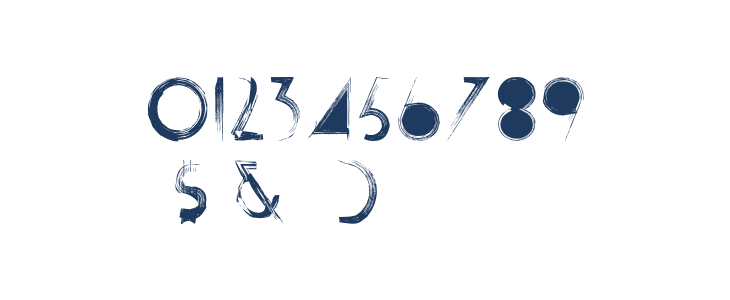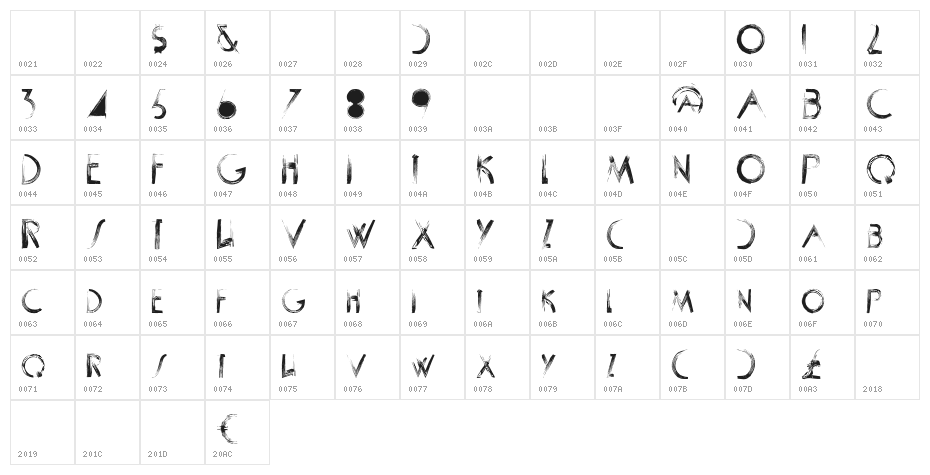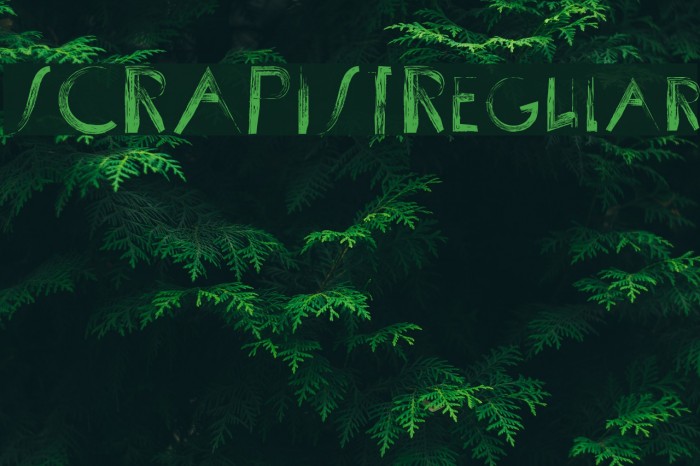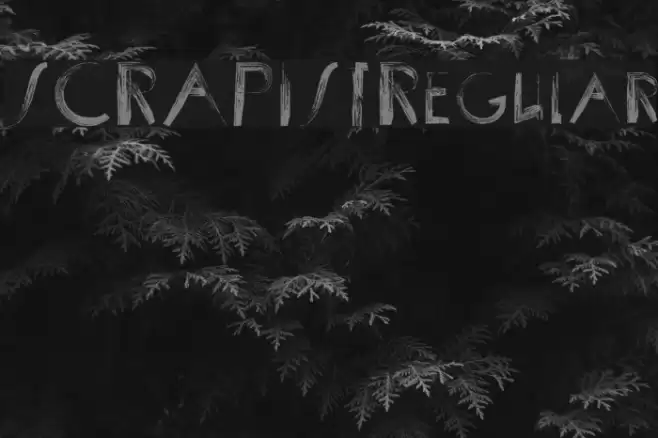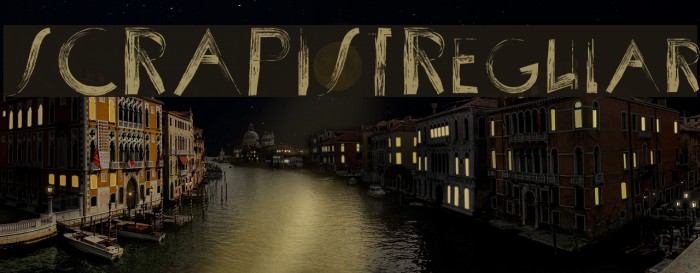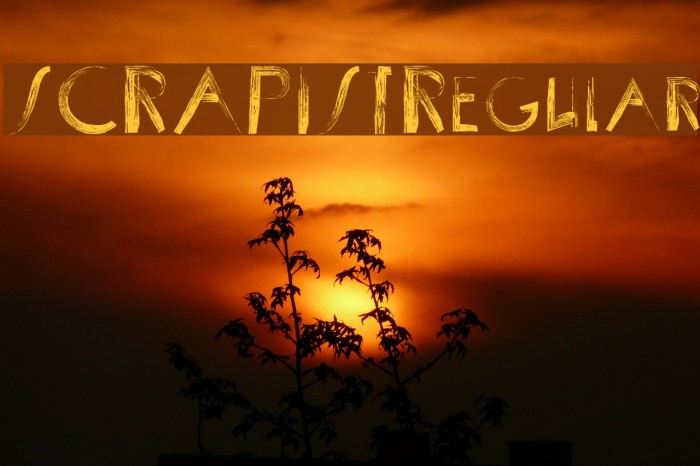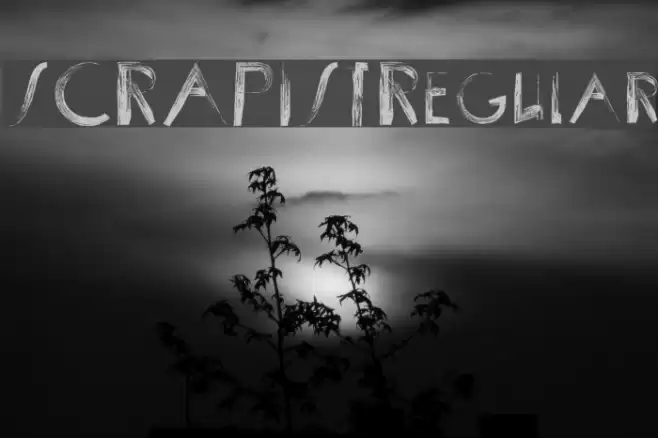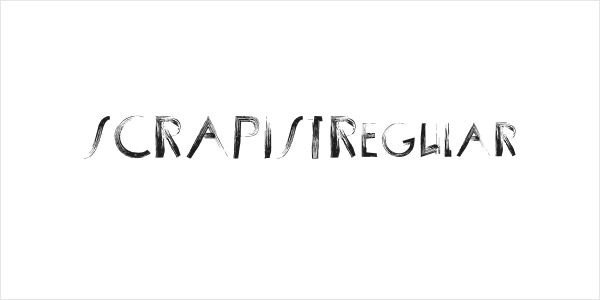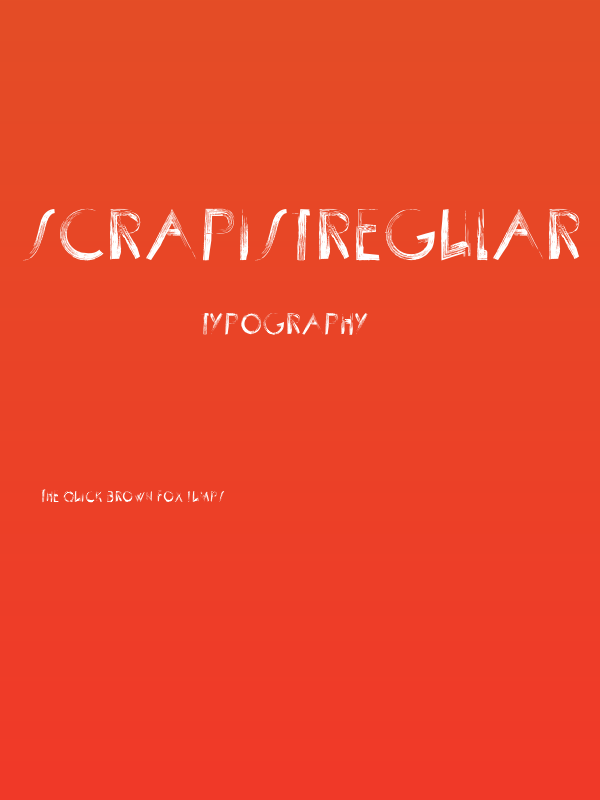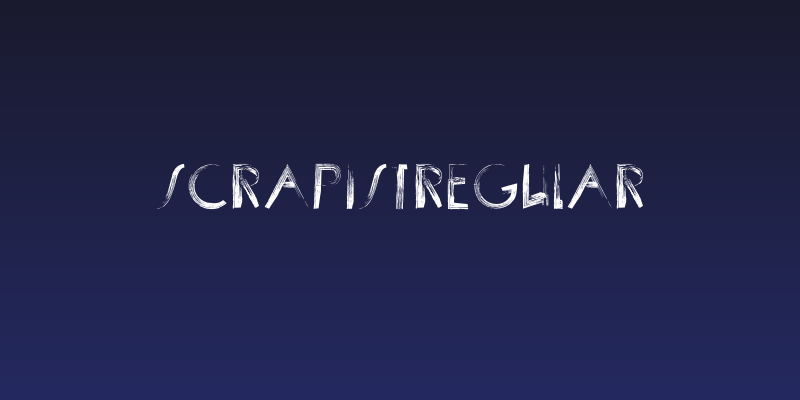
SCRAPIST-Regular Font
SCRAPIST-Regular Description
This font features a distressed, grunge style with rough edges and a hand-drawn appearance. The characters have an uneven texture that gives them a dynamic and energetic feel, reminiscent of scratchy brush strokes or worn-out surfaces. The uppercase letters are bold and impactful, while the lowercase letters maintain the same rugged aesthetic. Numbers and special characters follow the same design, ensuring a cohesive look across all elements. This font is ideal for projects that require a raw, edgy, and artistic touch, making it perfect for posters, album covers, and creative branding.
| Overall Style | Grunge, Artistic, Edgy |
| Proposed Projects | Ideal for posters, album covers, creative branding, and edgy designs. |